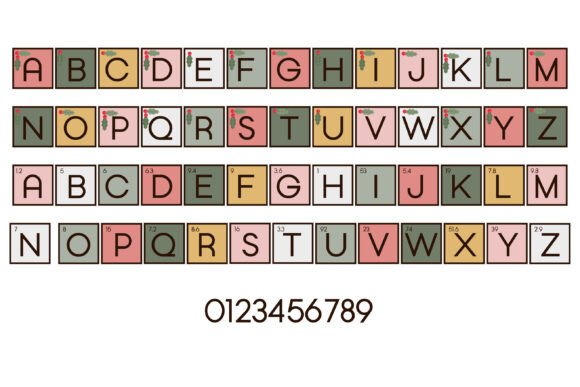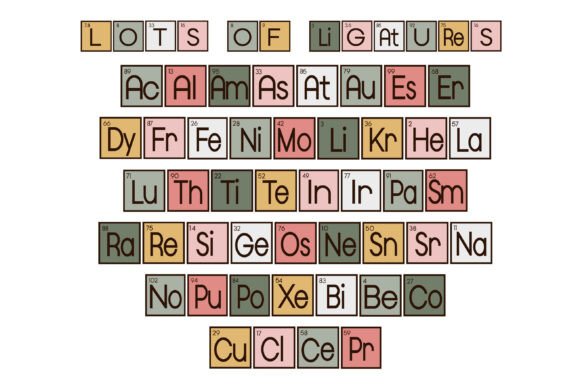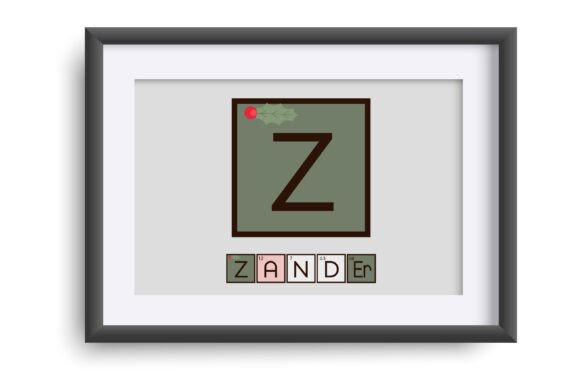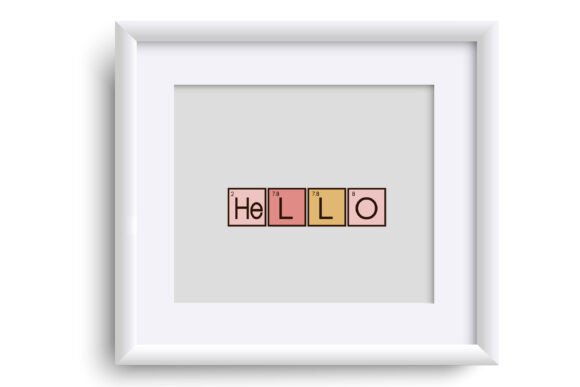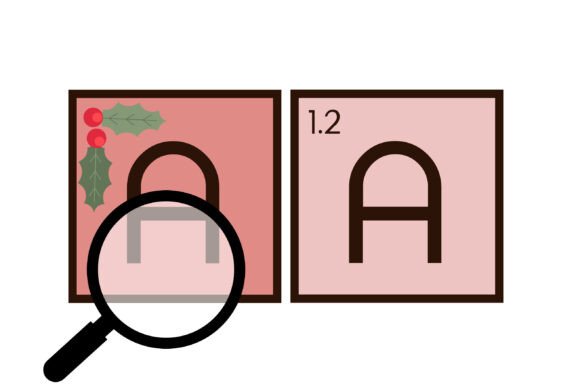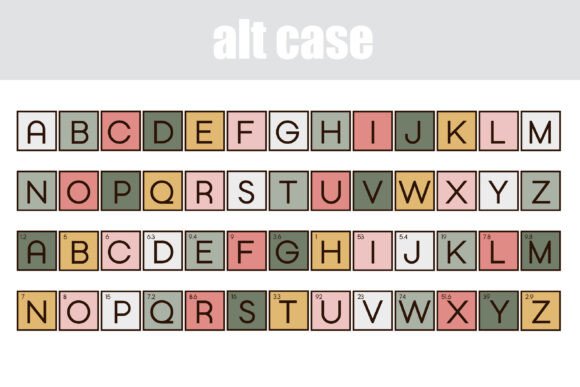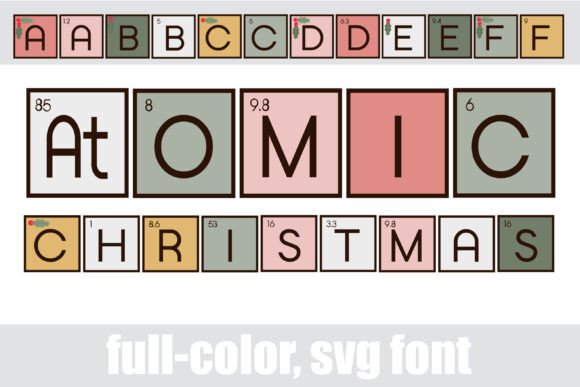
The Magic of Atomic Christmas Font: A Designer’s Delight
I still remember the thrill of working on a Christmas project last year, determined to create the perfect holiday-themed poster. As I scrolled through font after font, nothing seemed quite right – until I stumbled upon the Atomic Christmas Font. ✨ This full-color font, featuring the periodical table of elements in a vibrant Christmas color palette, instantly captured my attention. In this article, I’ll share my experience with this unique font, its features, and how to make the most of it in your designs.
- ✨ The Atomic Christmas Font is a game-changer for creating eye-catching, festive designs. Its unique blend of science and holiday cheer makes it perfect for titles, displays, and posters.
- ✅ The font features atomic weights in the lowercase letters, adding an extra layer of detail and realism.
- 🎉 The inclusion of ligatures representing real elements, such as Li in “Ligature,” showcases the font’s attention to detail.
- 🔍 The alt version, accessible through your system’s character map, offers additional colors for all letters, providing even more creative freedom.
While the Atomic Christmas Font is a powerful tool, there are a few things to keep in mind: ⚠️
The Story Behind Atomic Christmas Font
The Atomic Christmas Font was created with the goal of combining science and holiday cheer. The designer, inspired by the periodic table of elements, crafted a font that would bring a touch of atomic magic to festive designs. The result is a unique and captivating font that’s sure to delight designers and crafters alike.